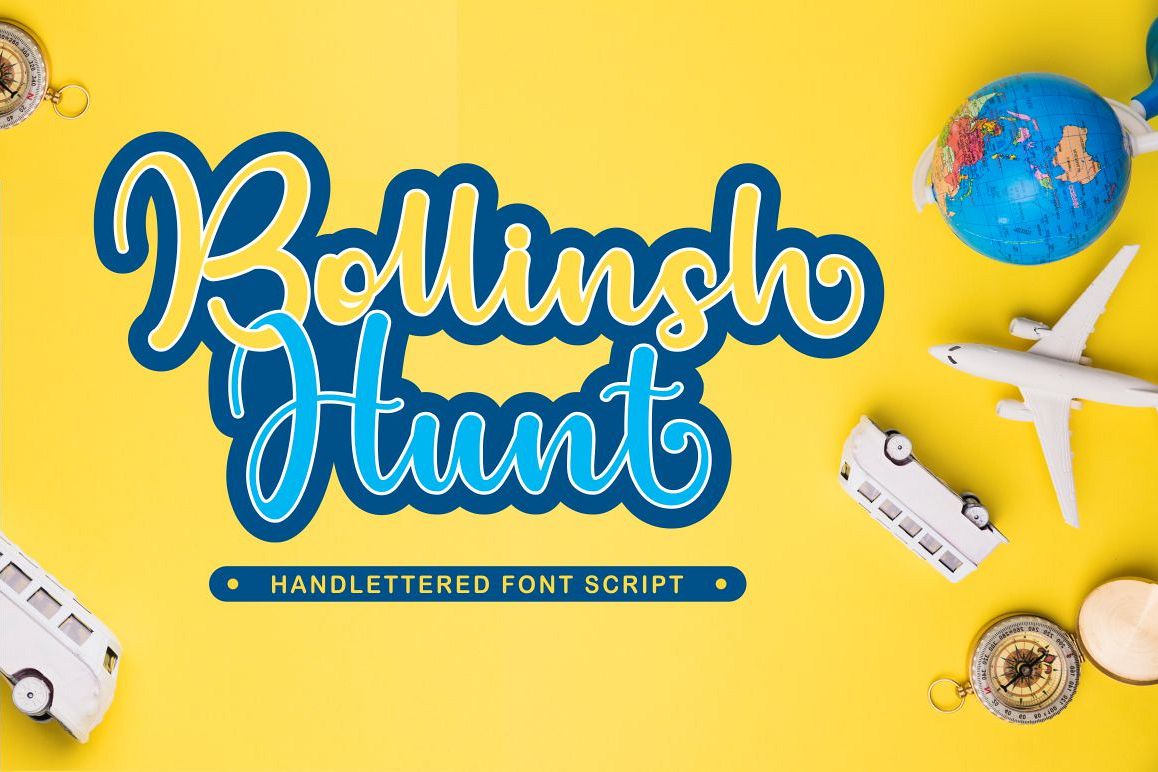
Bollinsh Hunt
I will introduce my newest product "Bollinsh Hunt"
This font is very modern,
and is perfect for your design ...
This font is suitable for business cards, logos, covers, comics, invitations, etc.